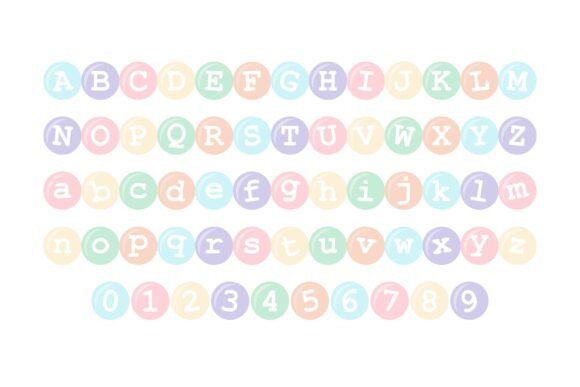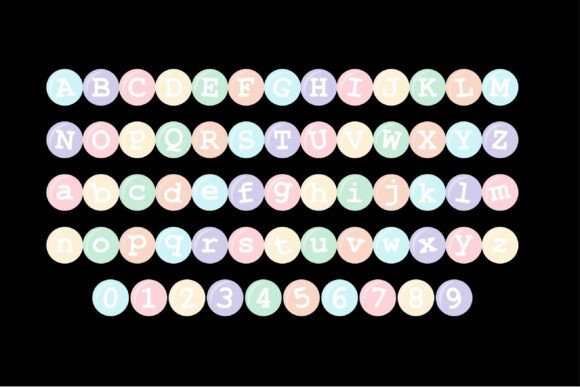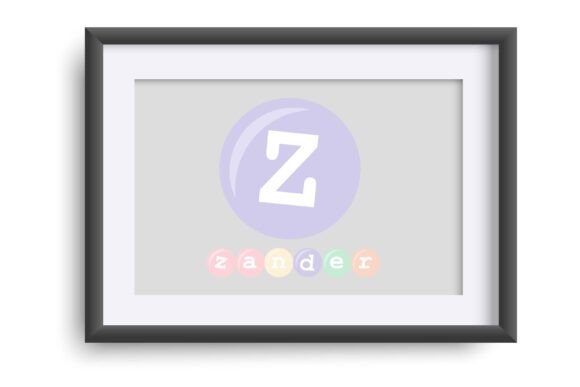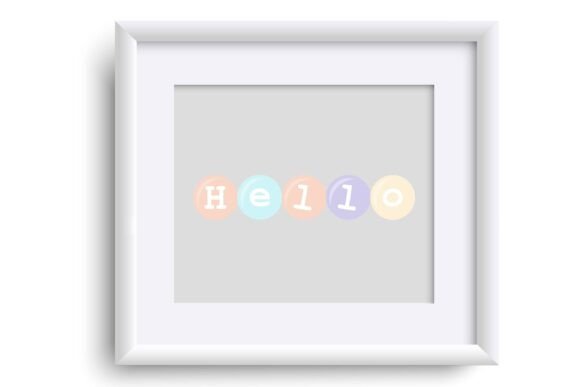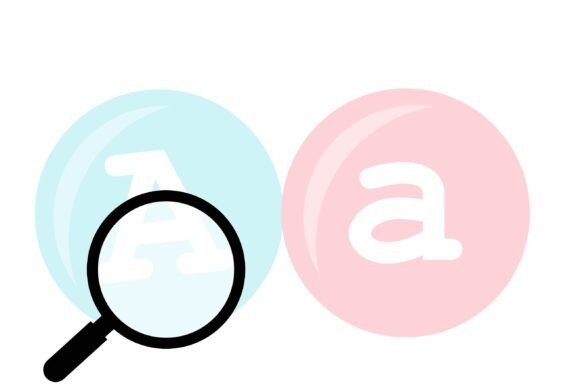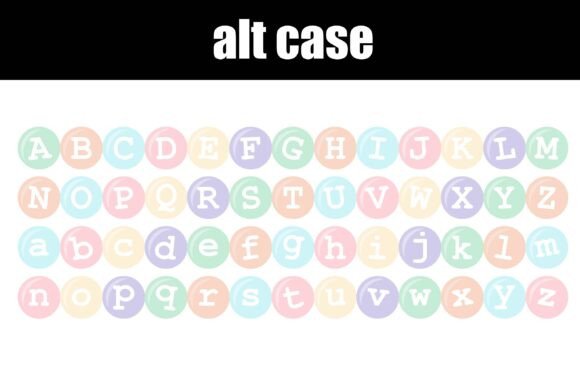
Easter M’s Font: A Deliciously Colorful Addition to Your Design Arsenal
Are you looking for a unique and festive font to add a touch of Easter cheer to your designs? Look no further than Easter M’s Font, a full-color font featuring pastel, candy-covered chocolates with white lettering that’s sure to delight designers and crafters alike. In this article, we’ll dive into the details of this delightful font, including its features, installation process, and compatibility with various design programs.
A Font that’s as Sweet as Candy
Easter M’s Font is a true showstopper, with its colorful, candy-inspired design that’s perfect for Easter-themed projects. The font features pastel-colored chocolates with white lettering, giving it a fun and playful vibe that’s sure to capture the spirit of the Easter season. But what really sets this font apart is its versatility – with a full range of colors and alternative characters, you can use it to create a wide range of designs, from sweet treats to festive decorations.
Additional Features and Glyphs
One of the best things about Easter M’s Font is its additional features and glyphs. In addition to the standard lettering, this font also includes an alt case of additional colors for each letter, which can be accessed through your system or Silhouette’s glyph map. This means you can mix and match different colors to create unique and personalized designs. And if you’re looking for a little extra something, you can even access a bunny and chick by typing the greater than and less than glyphs – how fun is that?
Why Full-Color SVG Fonts are a Game-Changer for Designers and Crafters
Full-color SVG fonts like Easter M’s Font are a game-changer for designers and crafters. They offer a level of personality and whimsy that’s hard to achieve with standard fonts, and can add a touch of fun and playfulness to even the most mundane designs. Whether you’re creating Easter-themed crafts, designing custom party decorations, or simply looking for a unique font to add to your arsenal, full-color SVG fonts are a great option.
Tips and Ideas for Using Easter M’s Font
So, how can you use Easter M’s Font in your designs? Here are a few ideas to get you started:
- Create custom Easter cards and invitations with colorful, candy-themed lettering.
- Design festive Easter decorations, such as bunny and chick-themed banners and garlands.
- Make custom Easter-themed crafts, such as candy-filled eggs and gift tags.
- Use the font to create fun and playful Easter-themed social media graphics and posts.
Easter M’s Font is a delightful and colorful addition to any design arsenal. With its candy-inspired design, versatile color palette, and fun glyphs, it’s the perfect font for Easter-themed projects and beyond. Whether you’re a designer, crafter, or simply someone who loves to have fun with fonts, Easter M’s Font is sure to bring a smile to your face. So why not give it a try – and see what sweet creations you can come up with?